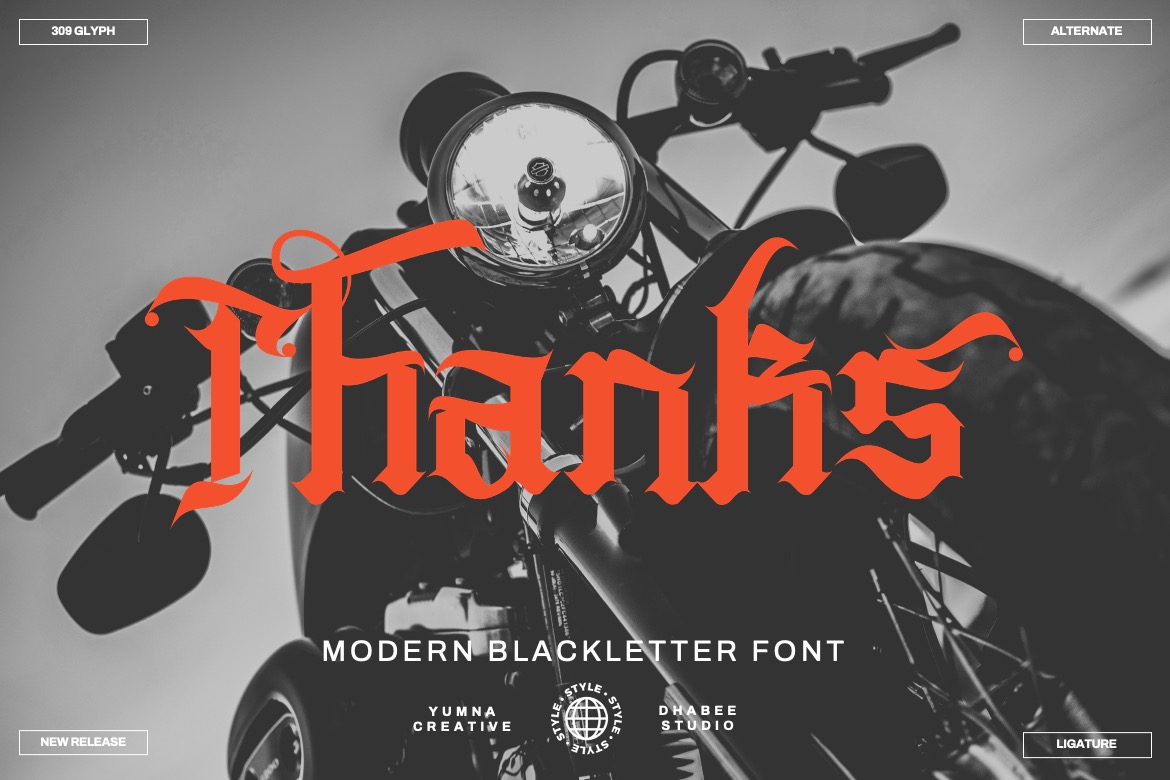
Rhoevad is a modern blackletter built from bold, chiseled verticals and clean, angular cuts—like carved strokes with crisp corners and confident weight. The capitals feel architectural and commanding, while select letters introduce dramatic hooks and extended terminals that add a logo-like flair.
The overall character is sharp and high-contrast, with tight inner counters and sturdy stems that keep every glyph looking solid and “metal-ready” without turning muddy. Uppercase forms read taller and more ornamental, making them perfect for titles, initials, and nameplates; the lowercase set is more compact and rhythmic, with distinctive broken-stroke details that keep words cohesive at display sizes. In dark backgrounds, Rhoevad looks especially punchy—its heavy strokes and pointed edges glow with strong silhouette clarity—while on bright backgrounds it stays readable as long as you give it enough size (or a touch of tracking) so the fine inner shapes don’t collapse.
This font really shines in bold, short copy: band logos, album artwork, streetwear graphics, motorcycle/vintage badges, posters, and packaging that needs an intense blackletter presence. For best results, use it large (headline/display range) and avoid long paragraphs; start around 24–32 pt for branding marks, and 48 pt+ for posters or covers where the details can breathe. License note: Rhoevad is free for personal use only—commercial projects require the appropriate license.